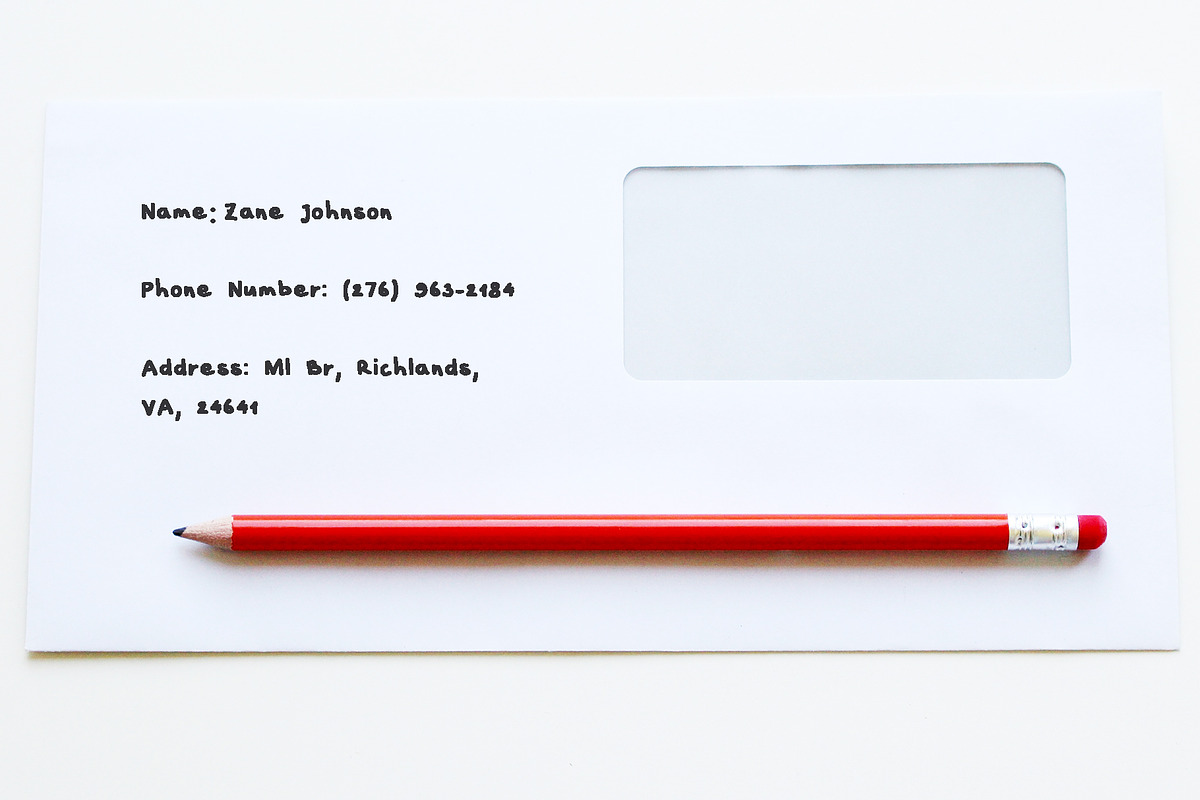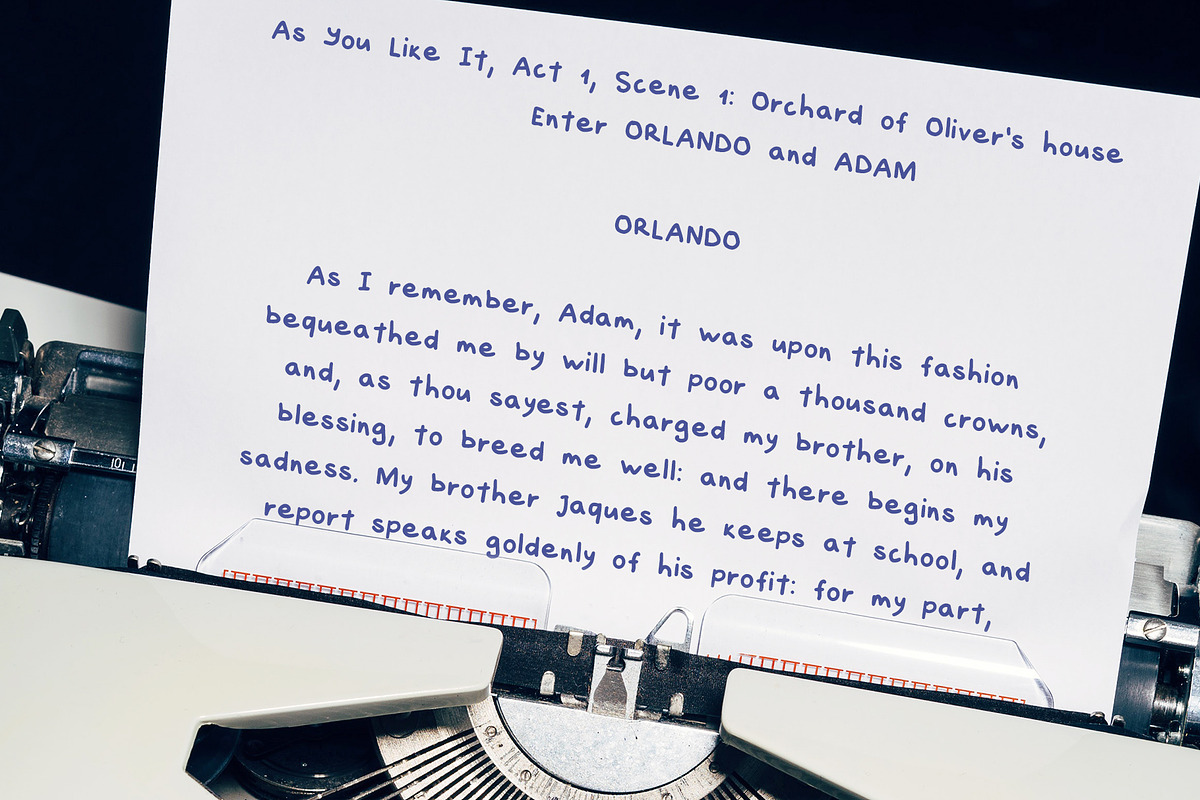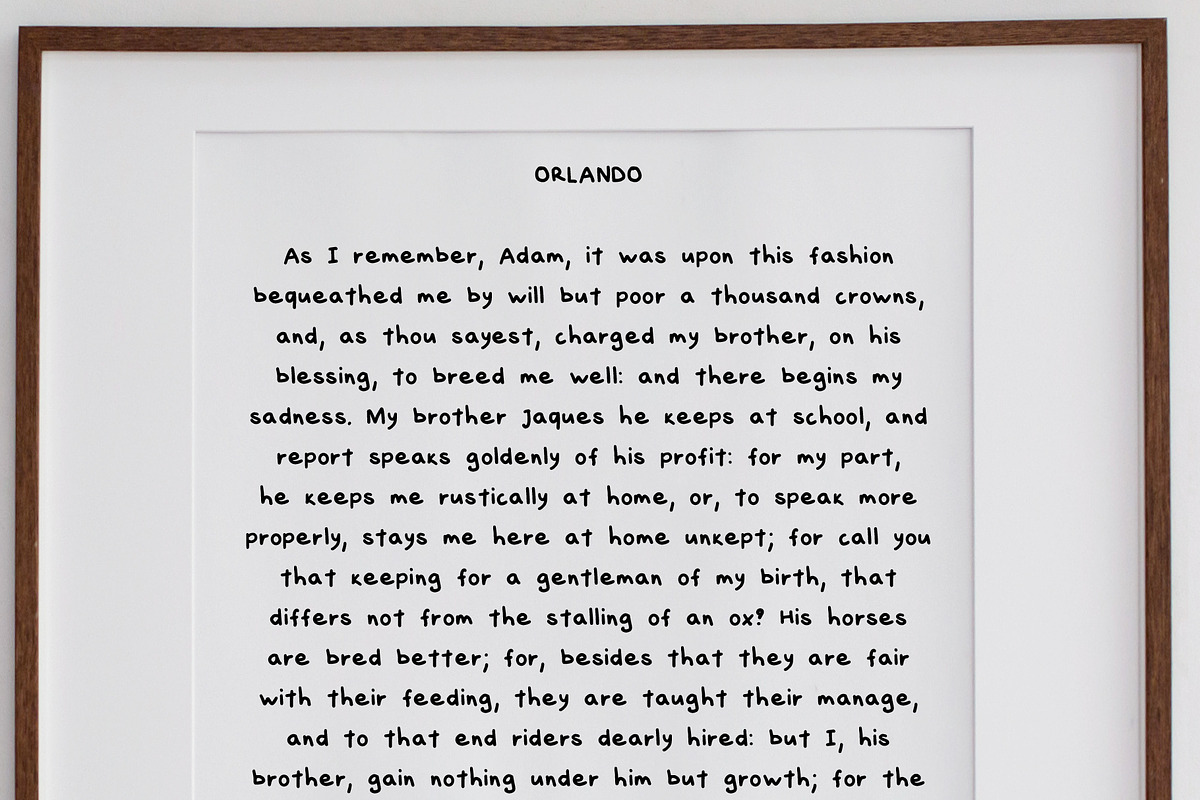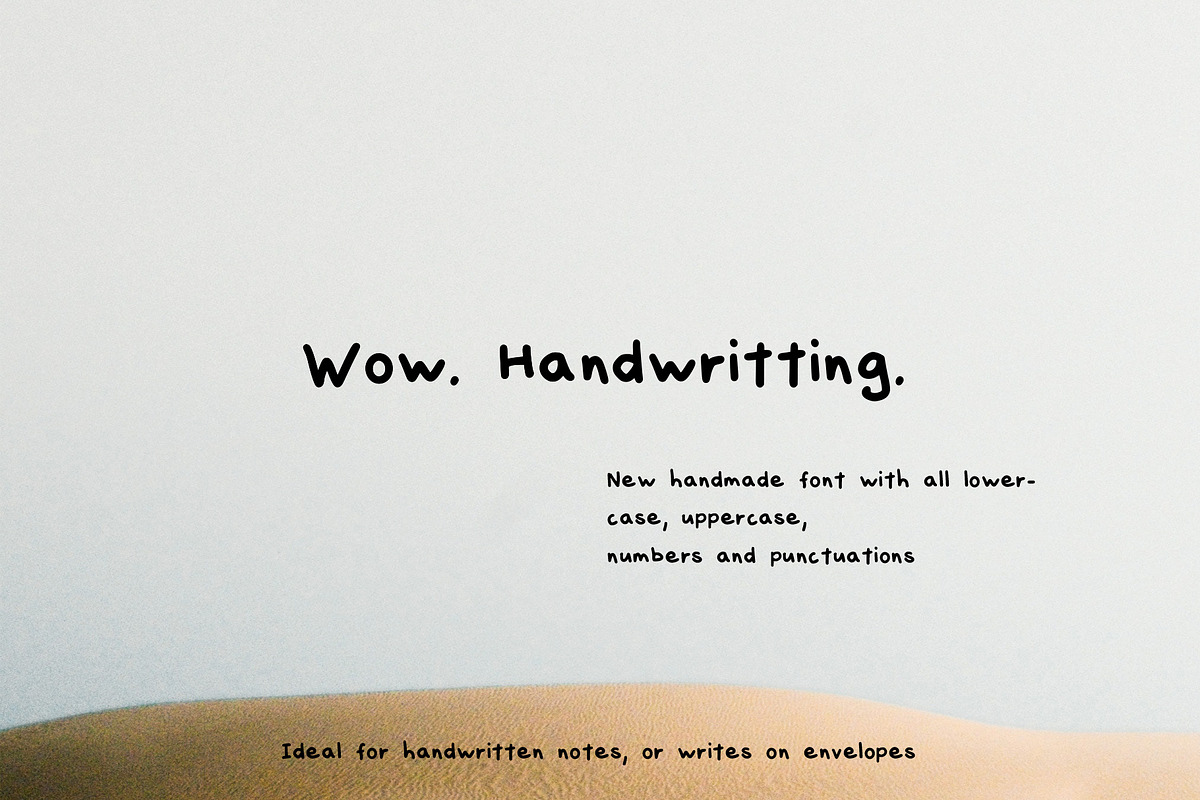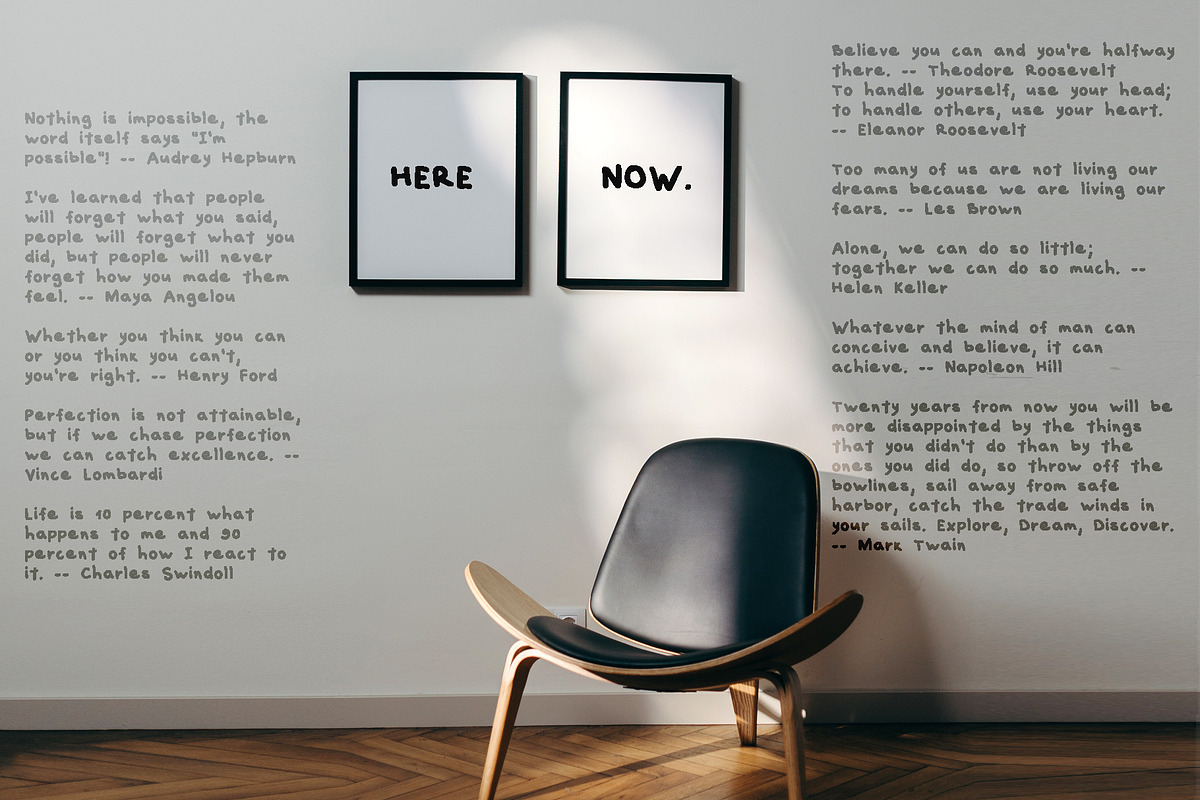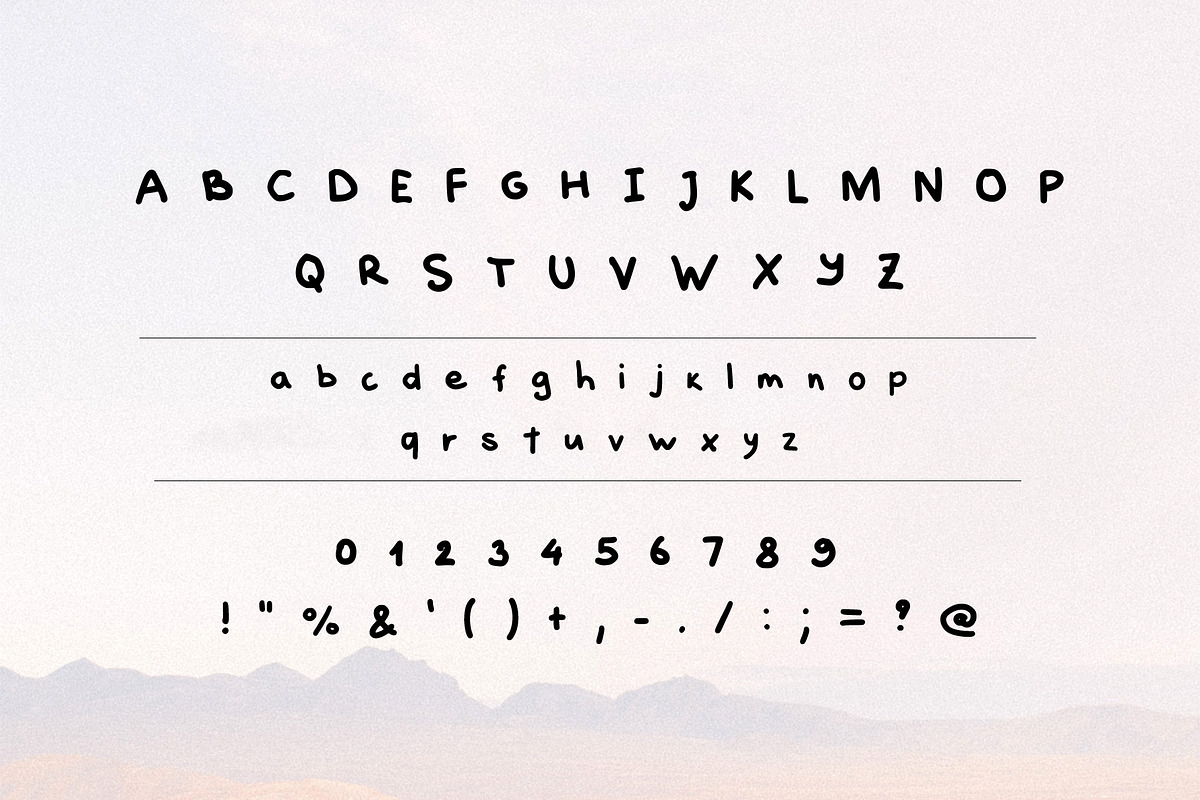
Wow. Handwrittihg. Handmade font
Wow. Handwrittihg is a script handwriting font. I made it to print at envelopes, lecture notes and thought - maybe it needs someone and put in to my store. Font including all Uppercase and lowercase letters, numbers and punctuations.